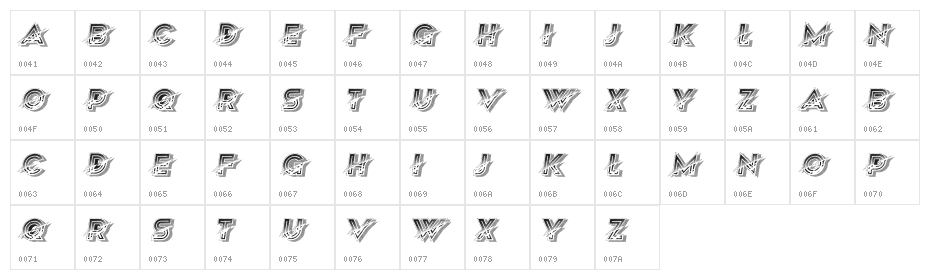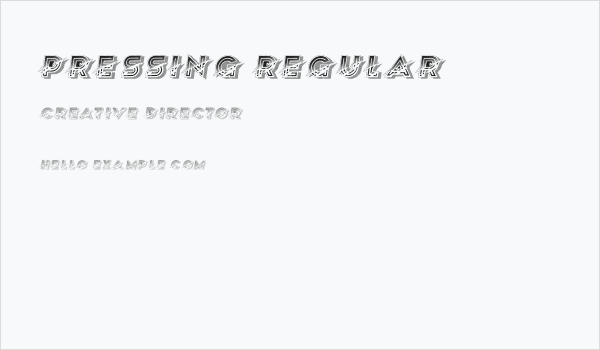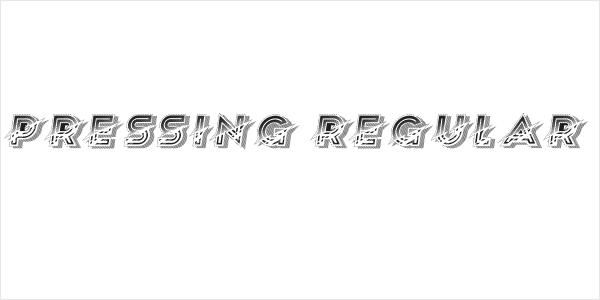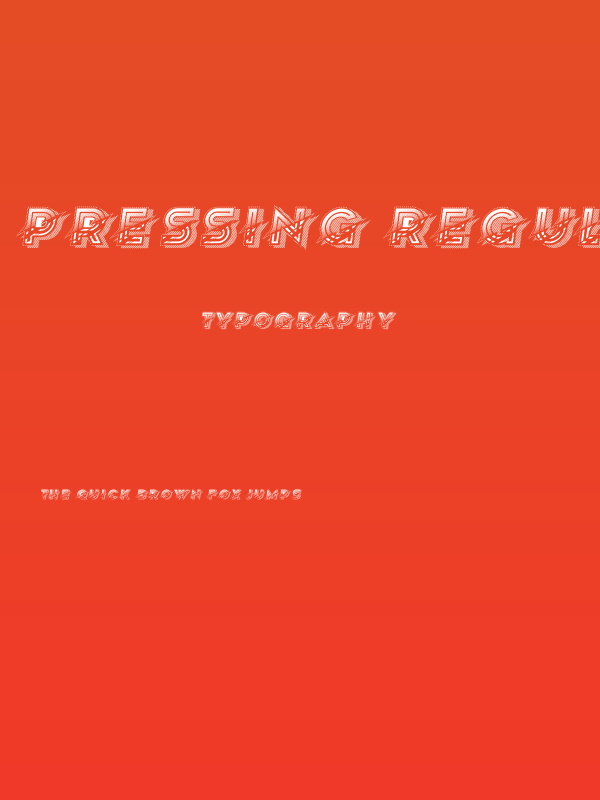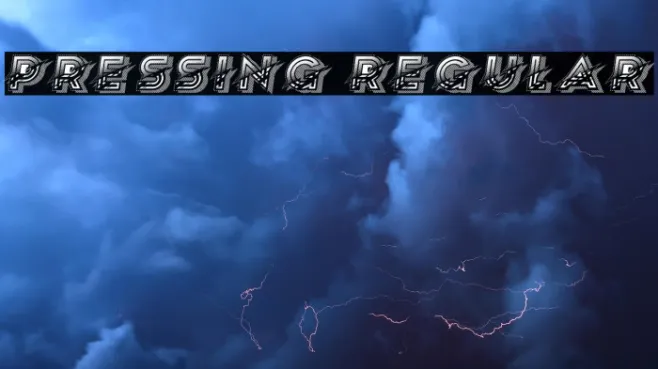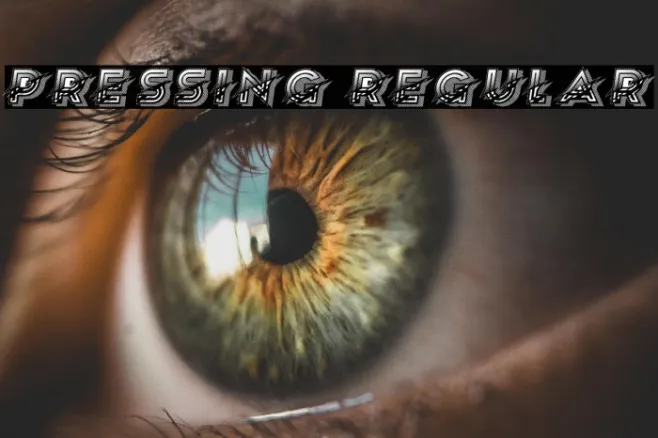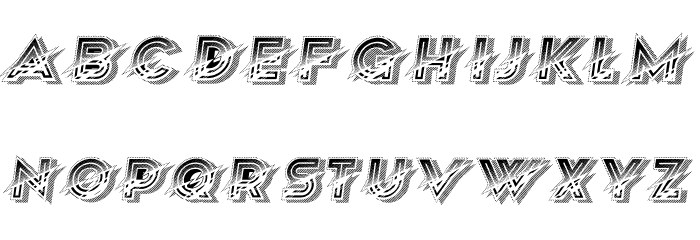
Pressing Regular Font
Pressing Regular Description
This font features a bold, decorative style with a unique layered effect that gives it a dynamic and energetic appearance. The characters are outlined with multiple lines, creating a sense of depth and movement. The design is highly stylized, making it stand out with its intricate detailing and bold presence. Each letter is crafted with precision, showcasing a modern twist on classic typography. The font's distinct look is perfect for projects that require a strong visual impact.